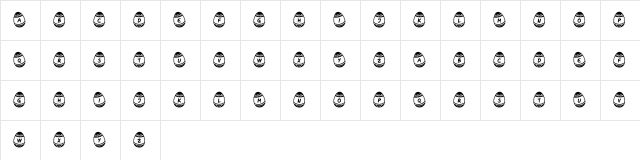
Easter Time Regular
Design Context for Easter Time Typeface
Easter Time is a composed and adaptable typeface that performs quietly and consistently across a wide range of design contexts.